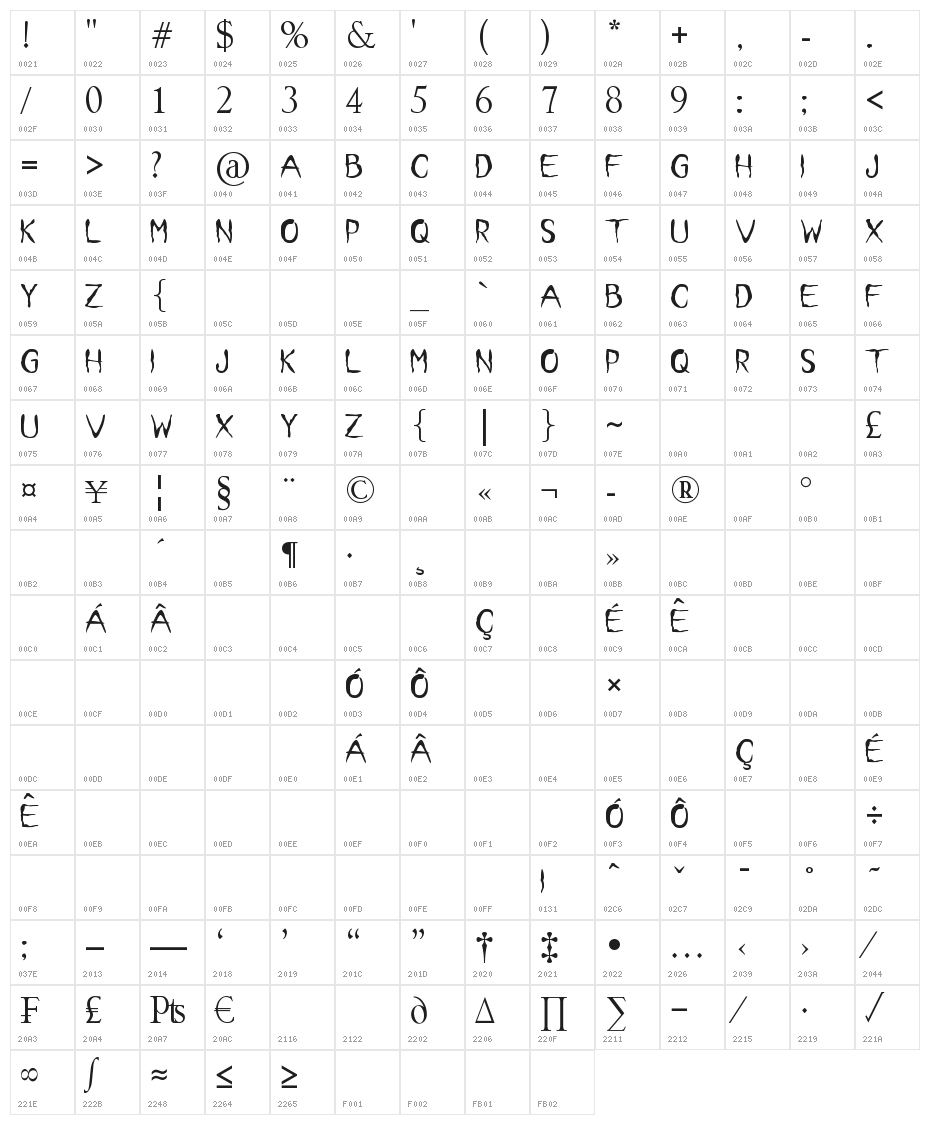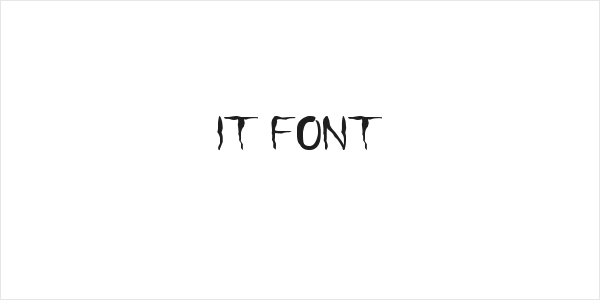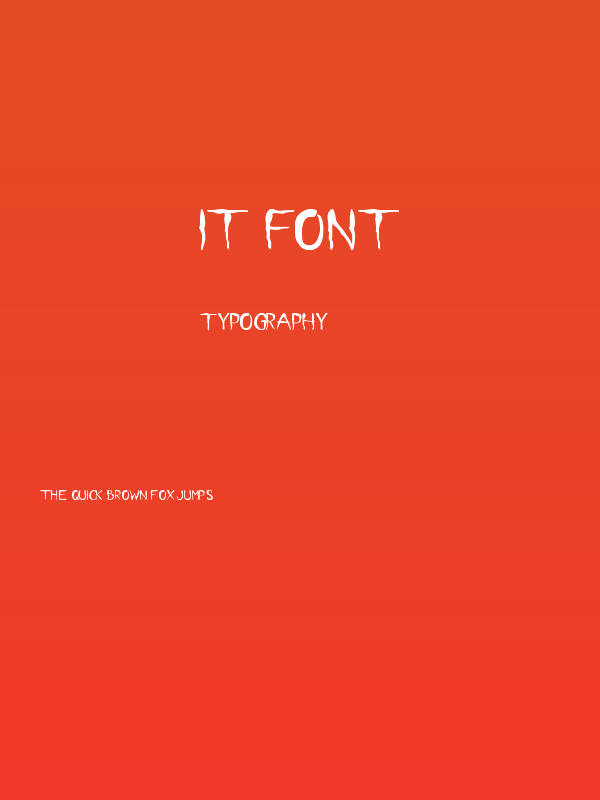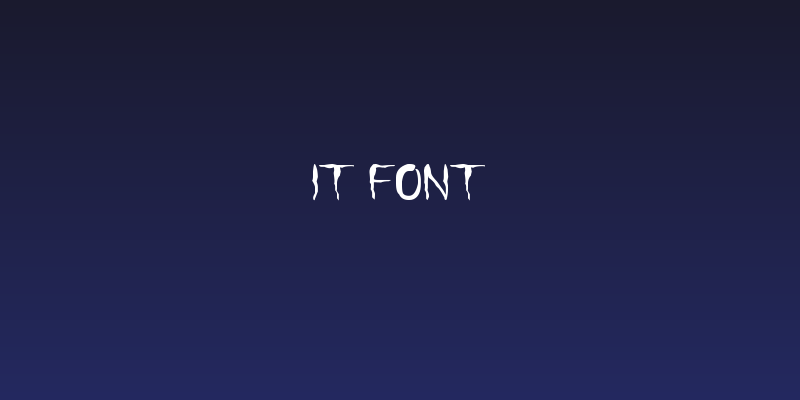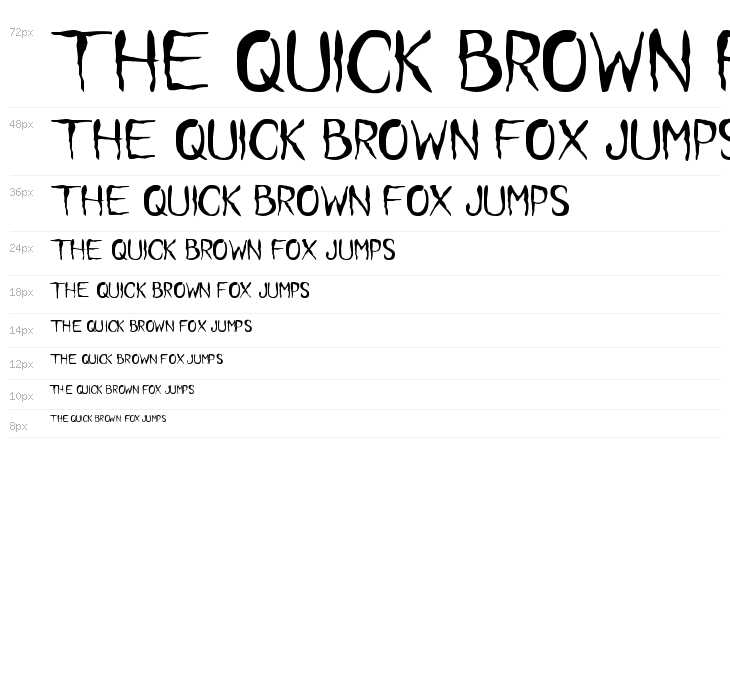
it font Font
it font Description
This font features a distinctive, edgy design with sharp, irregular strokes that give it a slightly eerie and dramatic appearance. The uppercase and lowercase letters maintain a consistent style, with jagged edges and varying stroke widths that create a sense of movement and energy. The numbers and special characters follow the same aesthetic, ensuring a cohesive look across all glyphs. The font's unique style makes it stand out, with a hand-drawn feel that adds a touch of personality and flair. Its irregularities and bold presence make it suitable for projects that require a strong visual impact.
| Proposed Projects | Ideal for horror-themed designs, Halloween posters, edgy branding, and creative projects that require a bold statement. |